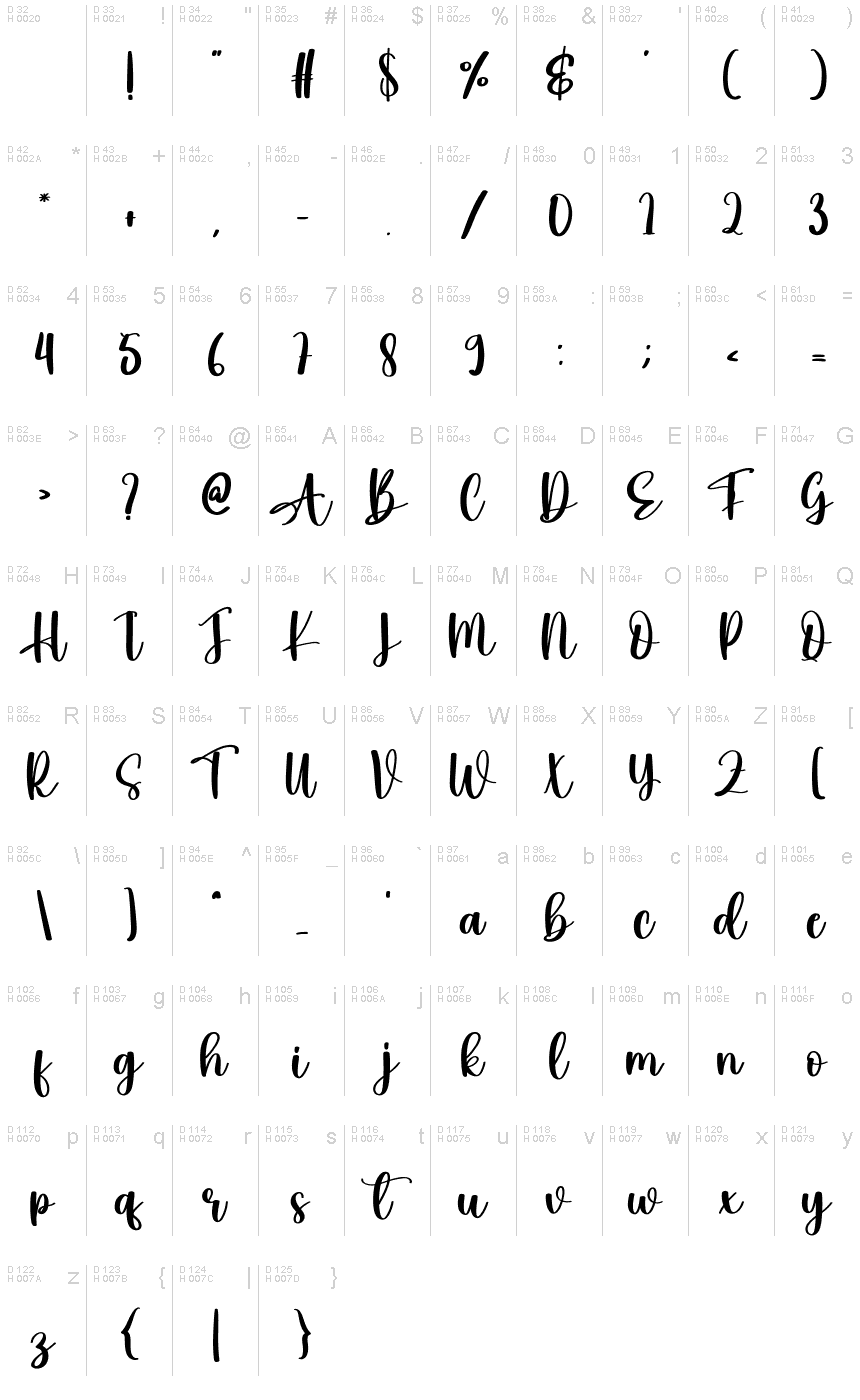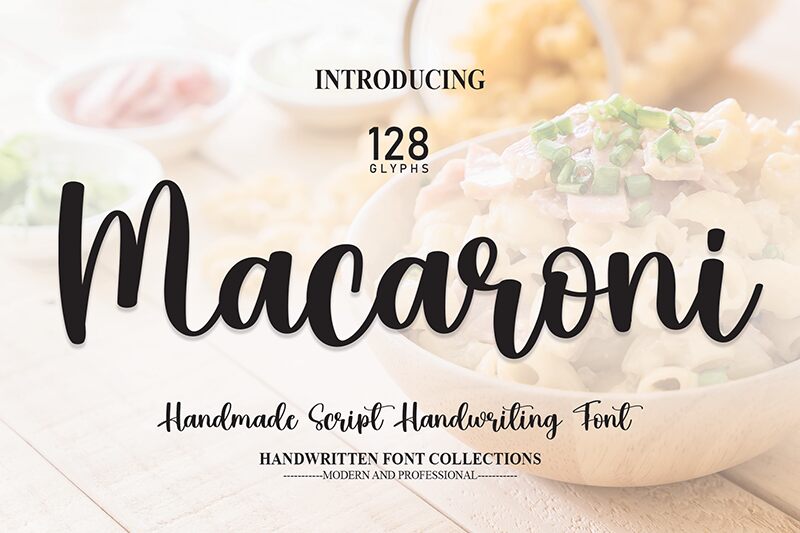
Macaroni
Meet Macaroni, the semi-bold calligraphy font designed by scratchones. This elegant typeface is perfect for adding a touch of sophistication and flair to your creative projects. Its unique stroke style and graceful curves make it ideal for wedding invitations, greeting cards, or any design that requires a touch of elegance. The semi-bold weight gives it just the right amount of presence without overpowering other design elements. Whether you're working on branding materials or want to add a touch of class to your website, Macaroni is the perfect choice for those seeking beautiful calligraphy with a modern twist.
the latest style letters are perfect for wall displays, wedding invitations, social media post logos, advertisements, product packaging, product designs, labels, photography, watermarks, invitations, stationery, and any project that requires taste handwriting.